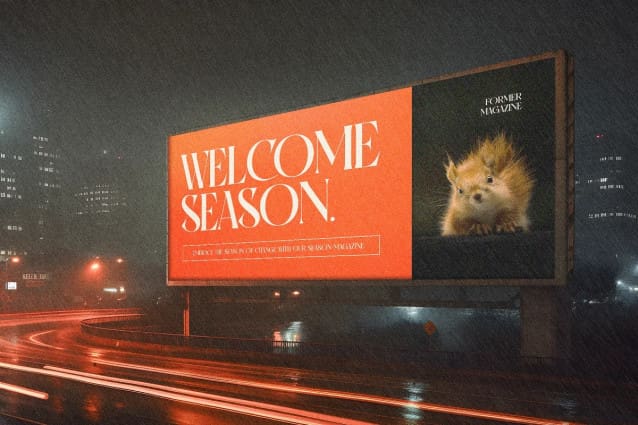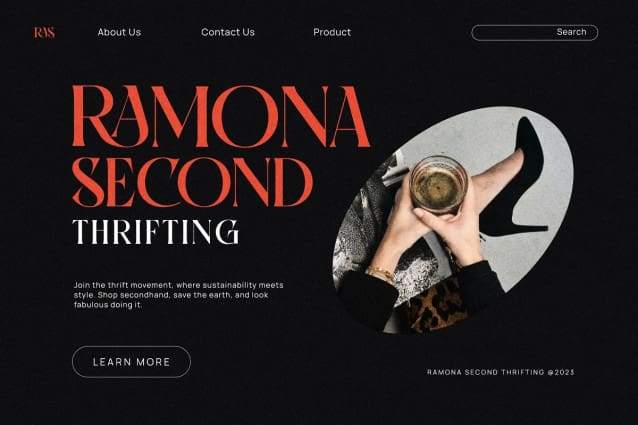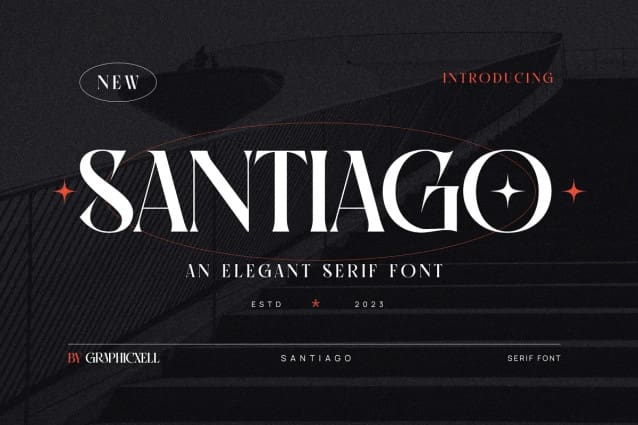
Santiago Serif Font
Santiago Serif Font, inspired by the famous minimalist logo perfect for the purposes of designing templates, brochures, videos, advertising branding, logos, invitation, layout design, elegant crafting, beauty design and other